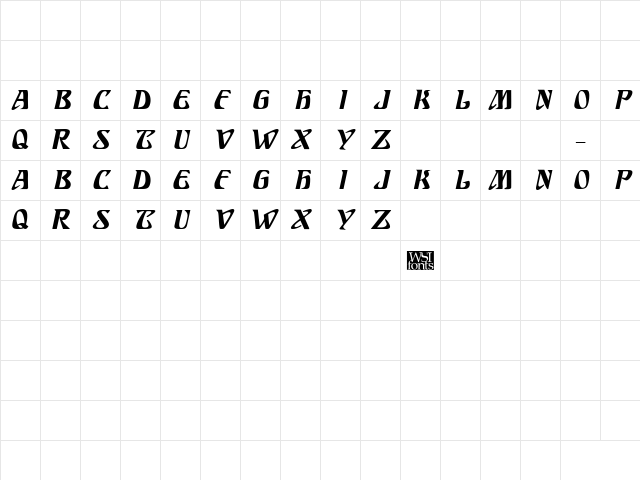
Complete SundraDisplayCaps Bold Italic glyph index. Displaying only characters natively supported by SundraDisplayCaps Bold Italic font.
SundraDisplayCaps is built around its visual character rather than neutral utility - its distinctive forms are designed to make an impression at display sizes. The slanted form adds forward momentum and visual energy. Its bold stroke weight gives it real presence on the page.
Font Pairing: Pair with a clean neutral sans-serif for body copy to let SundraDisplayCaps's character lead without overwhelming the composition.
Pro Tip: Use SundraDisplayCaps exclusively at display sizes - it was designed to be seen, not read at length. Let a neutral companion handle body copy.